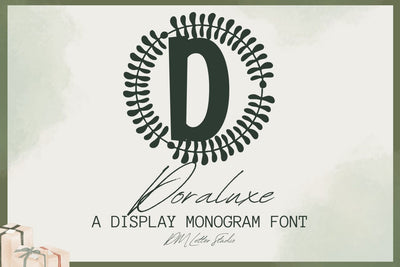
Doraluxe Monogram
Meet Doraluxe, the Monogram Font
Doraluxe Monogram Font turns simple initials into polished emblems with a calm, luxury feel. Lines are smooth and balanced. Open counters keep tiny tags and foil seals clear. Use it for wedding suites, boutique logos, keepsake gifts, and premium packaging. In addition, Doraluxe pairs beautifully with refined serifs and quiet humanist sans fonts, so your layouts stay elegant without extra work.
Where this monogram font shines
Set single, double, or triple initials for logos, seals, menus, and place cards. Then frame them with laurel rings, oval borders, or fine rules to echo the poised geometry. Since proportions favor symmetry and clarity, centered compositions come together in minutes. As a result, your thumbnails stand out on crowded marketplaces and listings feel consistent from invitations to signage. Doraluxe also scales smoothly from jewelry cards to foyer displays.
Design tips for Doraluxe Monogram
Keep initials large and let white space breathe. Pair the headline monogram with a soft serif for body text or a neat sans for labels. Add micro shadows, a thin inner stroke, or a delicate frame to create depth. Because the forms feel airy and balanced, textured papers and metallic accents raise perceived value. However, keep copy short so the monogram remains the hero, especially on small favors and tags.
Select stylistic alternates for key letters
Curves tuned for foil, letterpress, engraving, laser, and clean vinyl cutting
Why creators choose Doraluxe
You want elegance that reads at a glance and works across many products. Then, Doraluxe Monogram Font delivers steady clarity, quick layout, and a cohesive brand voice from invites to packaging and gifts.